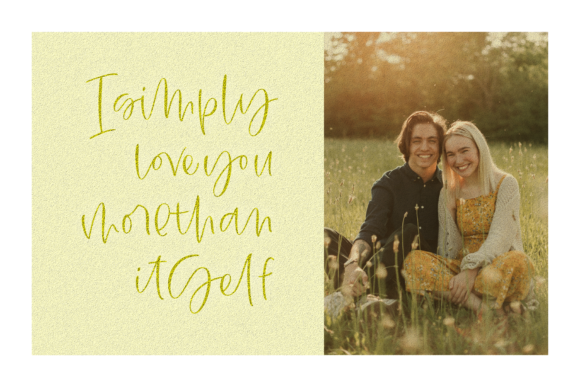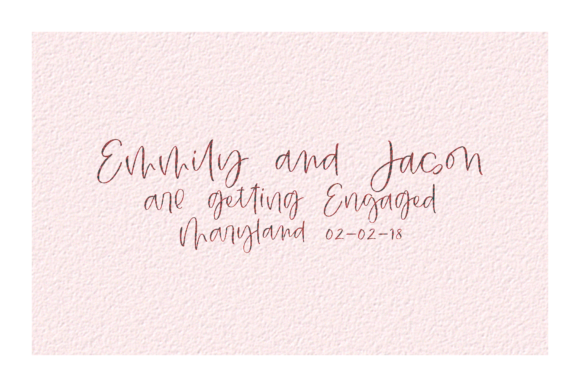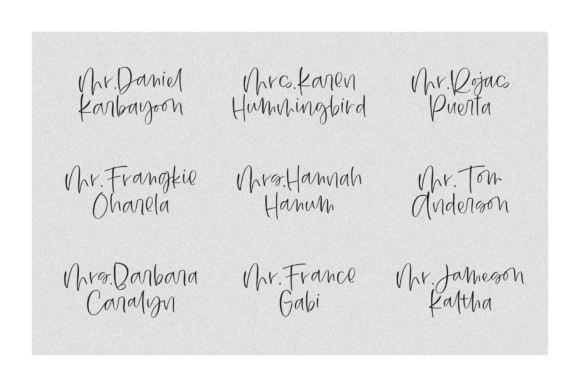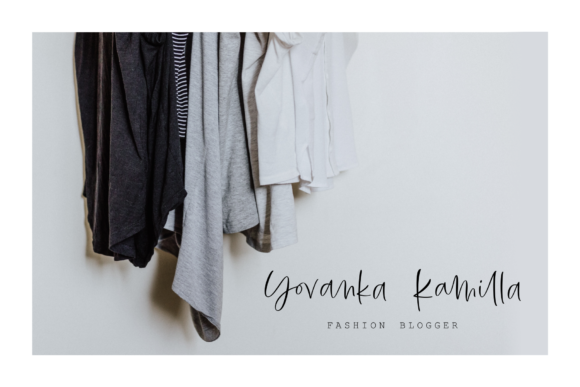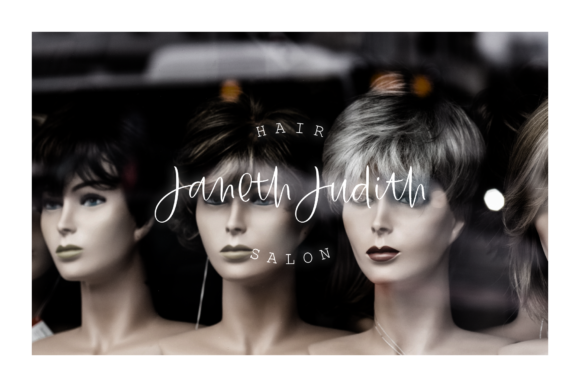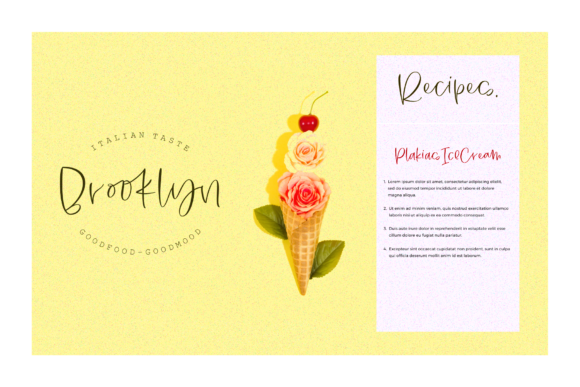
Introduction to Plakias Font
As a designer, you’ve probably experienced that moment when a single font can elevate your entire project from bland to grand. For me, it was a late-night brainstorming session where I stumbled upon the Plakias Font. Its elegant curves and stylish alternates immediately caught my attention, and I knew I had to incorporate it into my design. Whether it’s a high-quality wedding invitation card or a social media header, the Plakias Font adds a touch of sophistication that’s hard to resist.
As a valuable design resource, the Plakias Font offers a wealth of creative possibilities. With its transparent background and high-quality design, it’s perfect for designers looking to add a unique and upscale look to their projects. From printed quotes to product packaging, the Plakias Font is a must-have for any designer looking to take their work to the next level.
Key Features of Plakias Font
- High-quality design for creative projects with a unique, modern aesthetic.
- Transparent background, making it a versatile design resource for various applications.
- Designed to be highly legible, even at small font sizes, making it ideal for body text and titles.
- Resolution-independent, ensuring that the font looks sharp and clear on various screens and printing devices.
Honest Review: Plakias Font
I recently stumbled upon the Plakias Font, and I must say it’s a great addition to any designer’s toolkit. The font is perfect for high-quality, creative projects that require a unique touch.
- ✨ The font’s transparent background makes it incredibly versatile and easy to use with any design.
- ✨ The design is modern and sleek, making it a great choice for creative projects.
- ⚠️ The font is a bit limited in terms of character set, which may not be ideal for complex projects.
- ⚠️ The font may not be suitable for body text, as it’s more designed for headings and titles.
Overall, I’m impressed with the Plakias Font. While it may have some limitations, it’s a great choice for designers looking for a high-quality, creative font for their projects. I’d definitely recommend it for anyone looking for a free design resource.
Tips for Getting the Most Out of Plakias Font
Plakias Font is ideal for creating high-quality designs, such as logos, business cards, and brochures. It’s also a great design resource for creating digital products, like ebooks and presentations. With its unique style and transparent background, Plakias Font is perfect for any creative project that requires a professional touch.